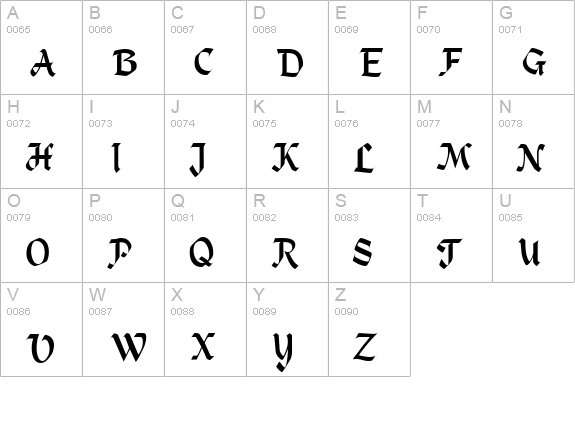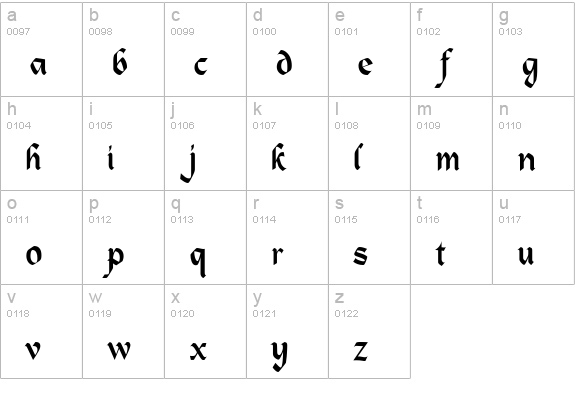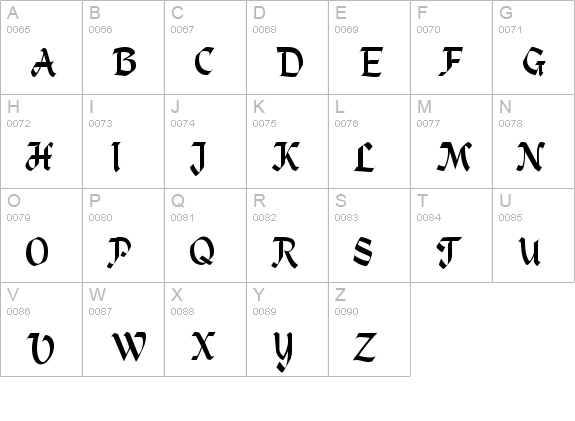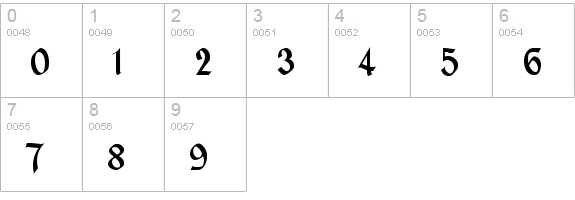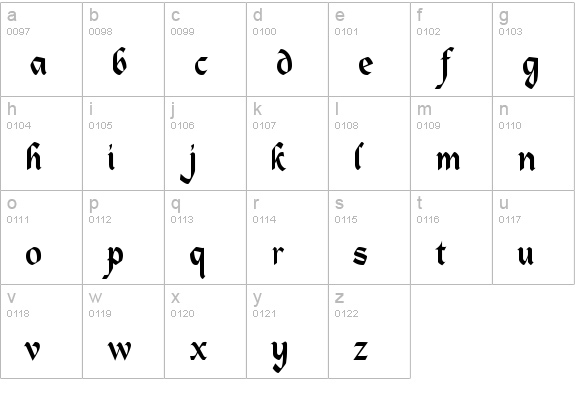
Alpine Regular Font Details
Alpine Regular is the standard, neutral variant in the Alpine typeface family \xE2\x80\x94 well suited to general body text, paragraphs, and standard typographic work.
Alpine Regular font is a timeless and versatile typeface that exudes elegance and sophistication. With its clean lines and balanced proportions, this font is perfect for a wide range of design projects, from branding and packaging to editorial and display purposes. The Alpine Regular font features a classic yet contemporary design, making it suitable for both traditional and modern applications. Its legibility and readability ensure that your message is conveyed effortlessly, while its subtle details and refined curves add a touch of refinement to any composition. One of the standout features of the Alpine Regular font is its versatility. Whether you are designing a logo, creating a website, or designing a poster, this font can adapt to any creative vision and enhance the overall aesthetic. Its wide range of weights and styles allows for endless possibilities and allows you to experiment with different combinations to achieve the desired look and feel. But the best part is that Alpine Regular font is free! Yes, you read that right. This exceptional font is freely available to download at FontsMarket.com. So you can bring your design ideas to life without breaking the bank. Take advantage of this incredible offer and add the Alpine Regular font to your collection today. In conclusion, the Alpine Regular font is a true gem in the world of typography. Its timeless design, versatility, and availability as a free download make it an invaluable asset for designers and creatives alike. So don't miss out on this opportunity to elevate your projects with the Alpine Regular font from FontsMarket.com.